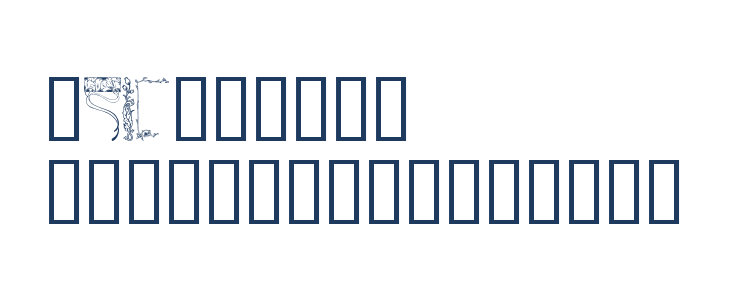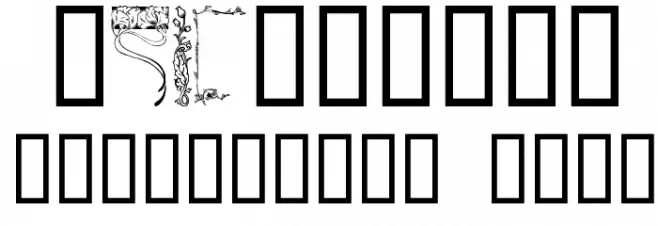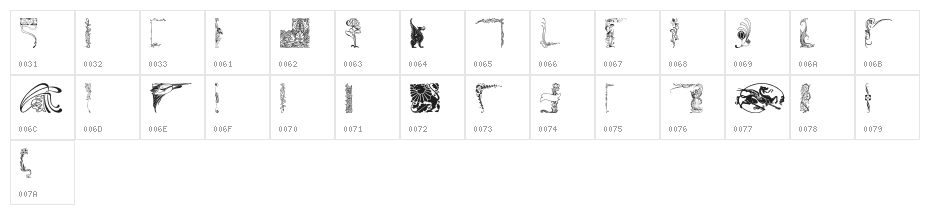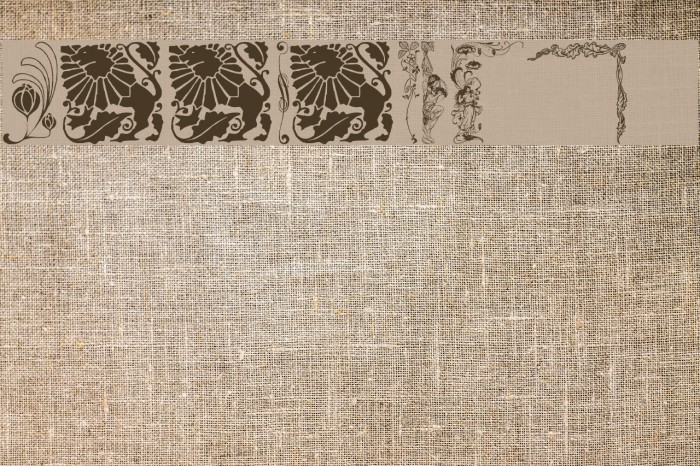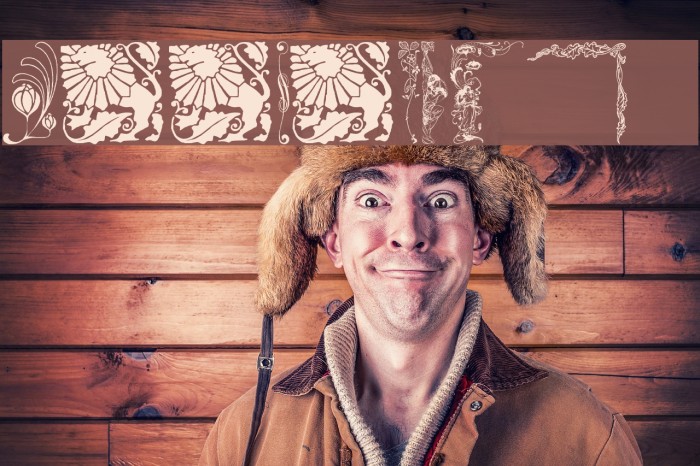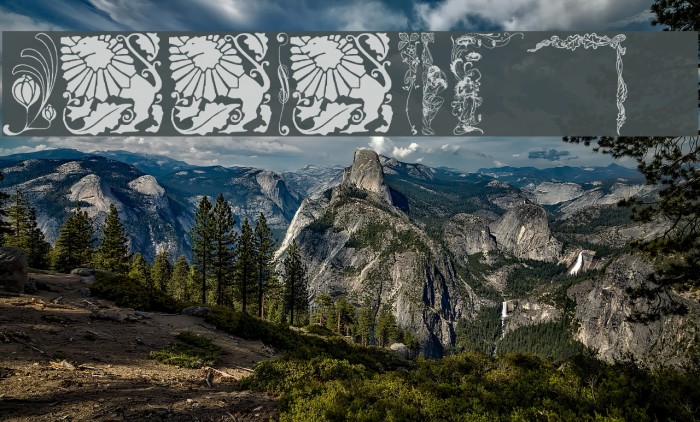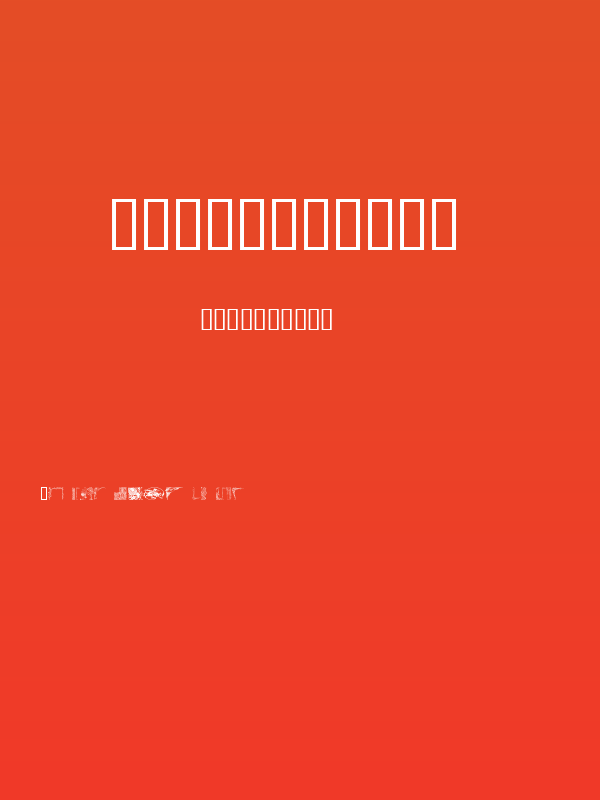
MirrorImage Font
MirrorImage Description
This font is a highly decorative and intricate design, featuring elaborate floral and organic motifs intertwined with each letter. Each character is a work of art, with detailed embellishments that create a sense of elegance and sophistication. The letters are not uniform in style, with some incorporating mythical creatures and others showcasing intricate patterns. This font is not suitable for body text due to its complexity but serves as a striking display typeface that captures attention with its artistic flair.
| Proposed Projects | Ideal for use in artistic projects, such as invitations, posters, or branding that requires a touch of elegance and creativity. It can also be used in fantasy-themed designs or any project that benefits from a decorative and unique typeface. |